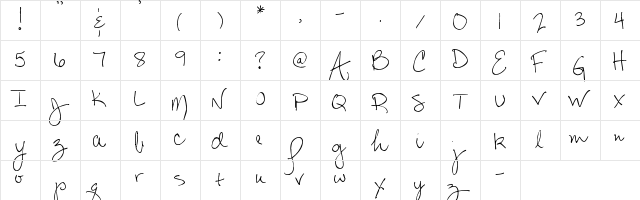
Pea Steph Regular Font Preview
Pea Steph Regular
Design Context for Pea Steph Typeface
Pea Steph is a composed and adaptable typeface that performs quietly and consistently across a wide range of design contexts.
Pro Tip: Pair Pea Steph with a font of contrasting weight or personality to build a more expressive typographic hierarchy.